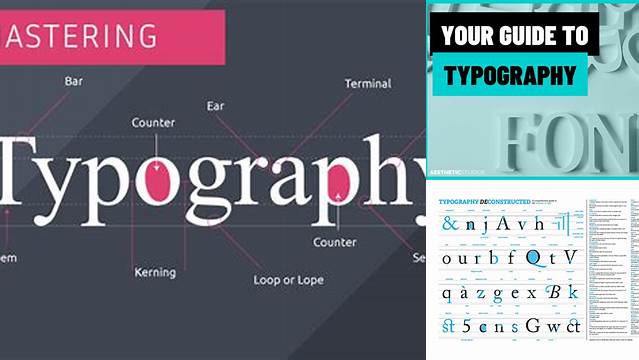
All Fonts: Your Ultimate Guide To Typography
Typography is the art and technique of arranging type to make written language legible, readable, and appealing when displayed. It involves the selection of typefaces, point size, line length, line spacing (leading), letter spacing (tracking), and adjustment of the space between specific pairs of letters (kerning). This field plays a crucial role in the design of websites, books, magazines, and all forms of printed and digital media. When we talk about all fonts, we're diving into a vast universe of typefaces, each with its unique personality, history, and application. Choosing the right font can significantly impact how your message is perceived. It can evoke emotions, establish brand identity, and guide the reader's eye through your content.
Understanding the Basics: What are Fonts and Typefaces?
First things first, let's clarify the basics. The terms font and typeface are often used interchangeably, but there's a subtle difference. A typeface is a design of letters, numbers, and symbols that share a consistent style. Think of it as the overall family or design. Examples include Helvetica, Times New Roman, or Arial. A font, on the other hand, is a specific size, weight, and style of a typeface. For example, Times New Roman 12pt bold is a font. In the digital age, the distinction has blurred as we often refer to both terms as 'fonts'.
- Serif Fonts: These fonts have small decorative strokes (serifs) at the end of each letter. They are often associated with tradition, elegance, and readability in printed materials. Popular serif fonts include Times New Roman, Georgia, and Garamond. They are excellent for body text in books, newspapers, and long-form articles because the serifs help guide the reader's eye across the lines. However, serif fonts can sometimes appear less clean on screens, especially at smaller sizes.
- Sans-Serif Fonts: As the name suggests, sans-serif fonts lack serifs. They have a clean, modern appearance and are very popular for digital displays and headings. Examples include Helvetica, Arial, and Open Sans. Sans-serif fonts generally offer excellent readability on screens and are suitable for both body text and headlines. They are often favored for websites, apps, and modern designs due to their simplicity and clarity.
- Script Fonts: These fonts mimic handwriting or calligraphy. They are often used for display purposes, such as invitations, logos, and headings, to create a sense of elegance, personality, or informality. Script fonts can be more difficult to read in long passages of text, so they should be used sparingly. Examples of script fonts include Brush Script, Lobster, and Pacifico.
- Monospace Fonts: In monospace fonts, each character occupies the same amount of horizontal space. These fonts are often used for code, terminals, and technical documents, where the consistent spacing is crucial for legibility and alignment. Courier New is a classic example of a monospace font.
Choosing the right font type depends on the project, target audience, and desired message. A good designer always considers these factors when selecting fonts.
The History and Evolution of Fonts
The history of all fonts is a fascinating journey that mirrors the evolution of human communication. From the earliest forms of writing, like hieroglyphics, to the sophisticated typefaces we have today, the evolution of fonts reflects technological advancements and shifts in artistic expression.
- The Printing Press and Early Typefaces: The invention of the printing press by Johannes Gutenberg in the 15th century revolutionized typography. Gutenberg's printing press utilized movable type, which enabled the mass production of books. The first typefaces, such as Gutenberg's Blackletter, were designed to mimic the handwritten style of the time. These early fonts were often ornate and complex, reflecting the aesthetic preferences of the era.
- The Renaissance and the Rise of Roman Type: The Renaissance brought about a shift in artistic and intellectual thought, which influenced typography. Roman typefaces, based on the classic forms of ancient Rome, gained popularity due to their clarity and readability. This period saw the emergence of well-known typefaces such as Garamond and Caslon, which are still widely used today.
- The Industrial Revolution and the Expansion of Type Styles: The Industrial Revolution led to advancements in printing technology and a greater demand for printed materials. This period saw the proliferation of new type styles, including slab serifs and sans-serif fonts. Slab serifs, characterized by their bold, block-like serifs, were used for advertising and display purposes. Sans-serif fonts, with their clean and modern look, gradually gained acceptance.
- The Digital Age and the Explosion of Fonts: The advent of digital technology transformed the world of typography. The introduction of computers and desktop publishing software made it easier for designers to create and experiment with fonts. Today, there is an enormous variety of fonts available, catering to every style and design need. The digital age also led to the development of web fonts, which allow designers to embed fonts on websites, ensuring that the chosen fonts are displayed correctly regardless of the user's device or operating system. Understanding the history of fonts provides a deeper appreciation for the art of typography.
Conclusion: The Enduring Power of Typography
Typography is more than just selecting fonts; it is a critical aspect of design that greatly impacts communication, aesthetics, and usability. Understanding the intricacies of all fonts, from their history and evolution to their practical application, empowers designers to create effective and visually appealing designs. The journey of typography continues to evolve, with new fonts and design trends constantly emerging. Stay informed, keep learning, and continue to explore the vast world of fonts. By mastering typography, you can transform words into art, enhance the user experience, and leave a lasting impression on your audience. The enduring power of typography lies in its ability to shape how we read, understand, and interact with the world around us.